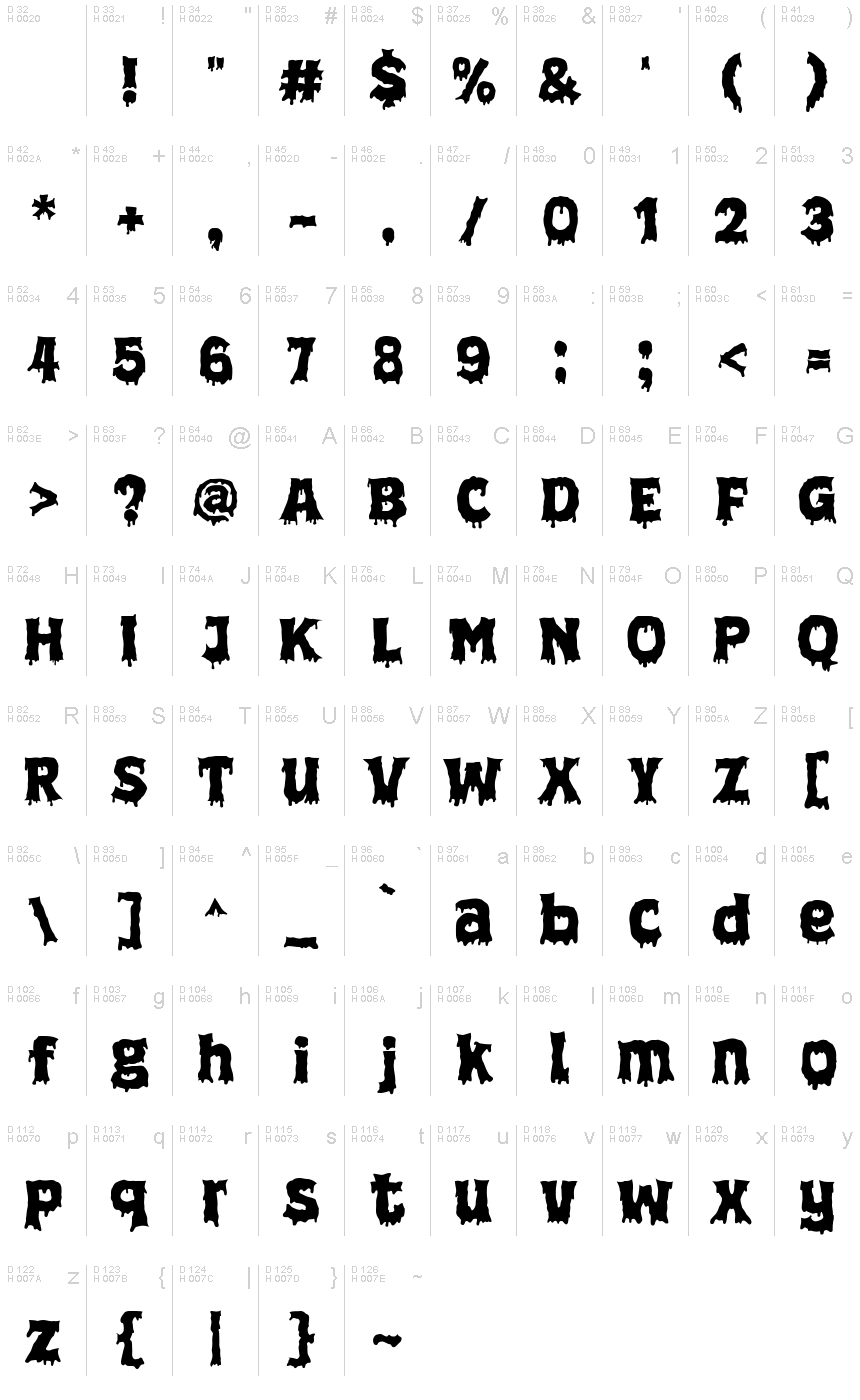
Super Mystery
Unleash the captivating essence of "Super Mystery" by fsuarez913, a bold and chilling display font that commands attention. Crafted with an impactful, jagged silhouette, this font exudes a sense of mystery and intrigue, perfectly suited to evoke emotions of suspense and the supernatural. Its heavy, blackletter-inspired strokes and haunting, distorted forms create a striking visual impact, making it a standout choice for projects seeking to convey a dark, eerie atmosphere.
This versatile font lends itself seamlessly to a variety of design applications, from horror-themed branding and editorial pieces to event posters and book covers. Its distinct character and strong personality make it an exceptional choice for projects that aim to elicit a sense of unease, mystery, or the macabre, allowing designers to craft captivating and memorable visuals that leave a lasting impression on their audience.